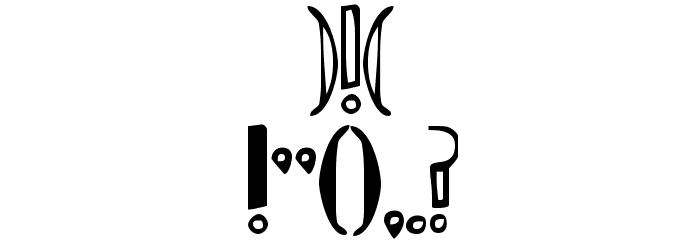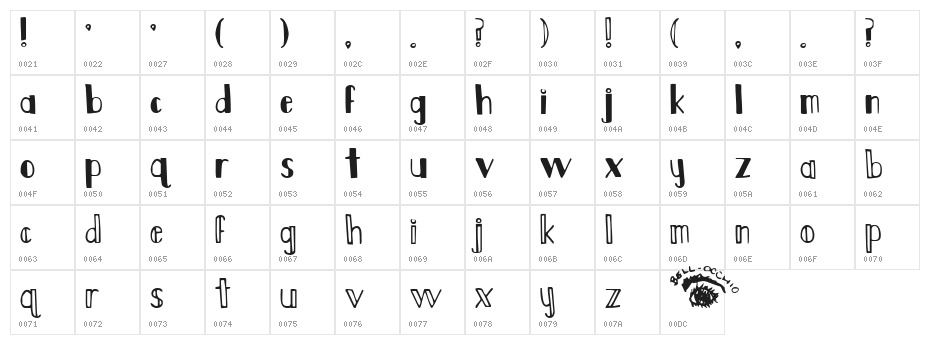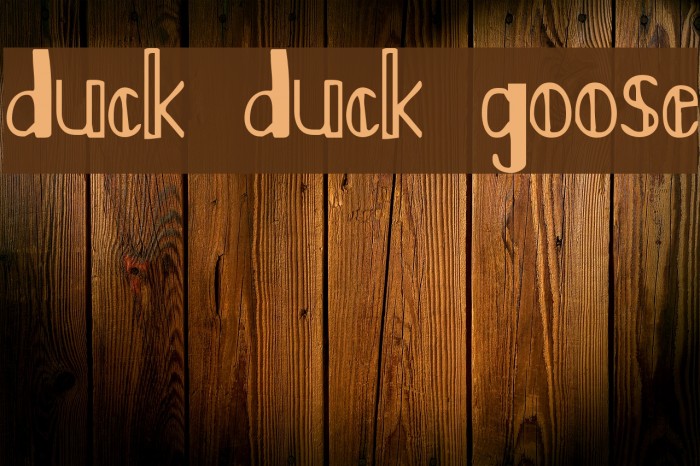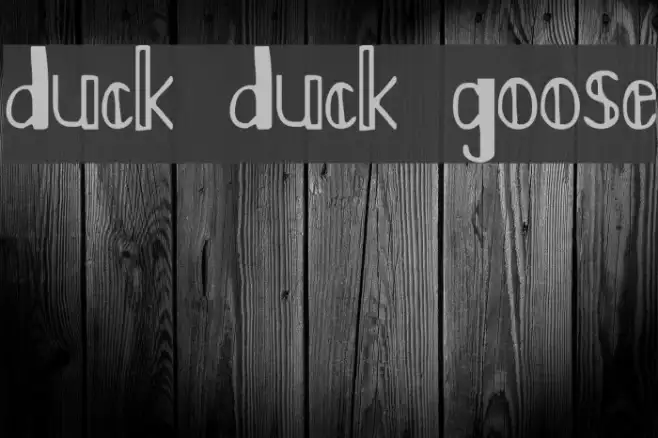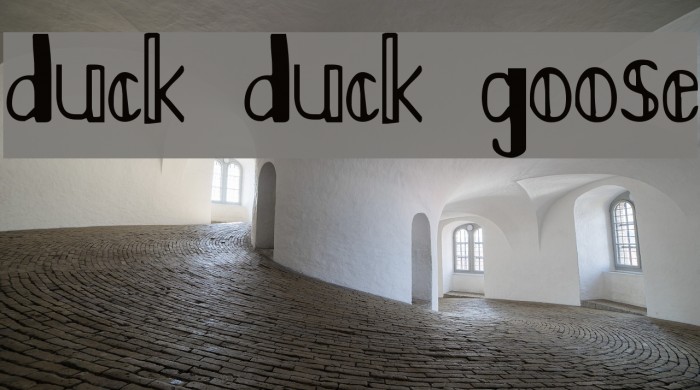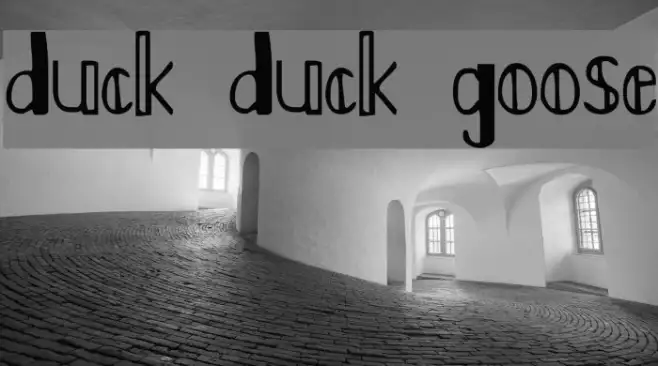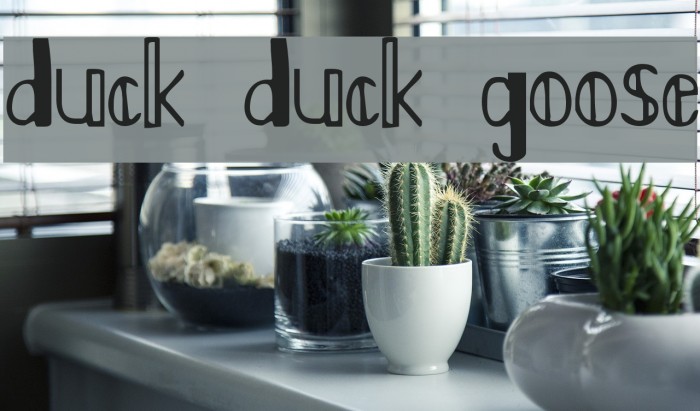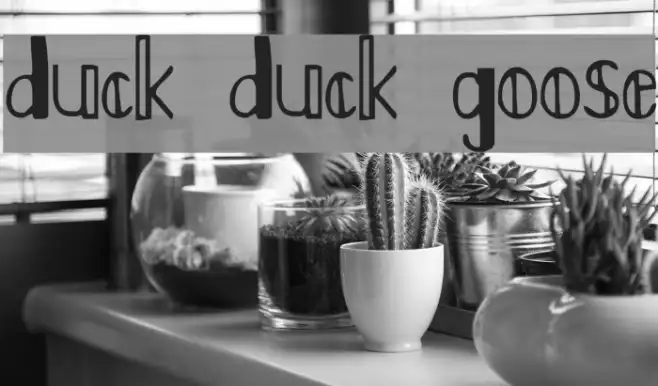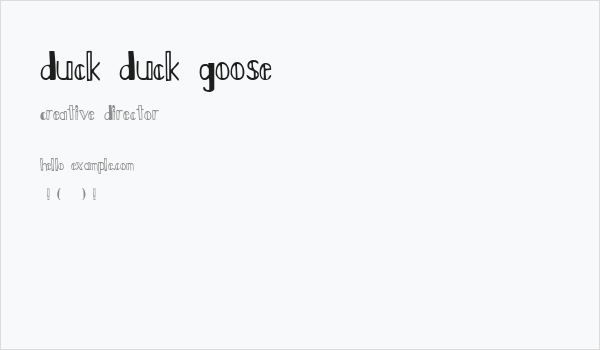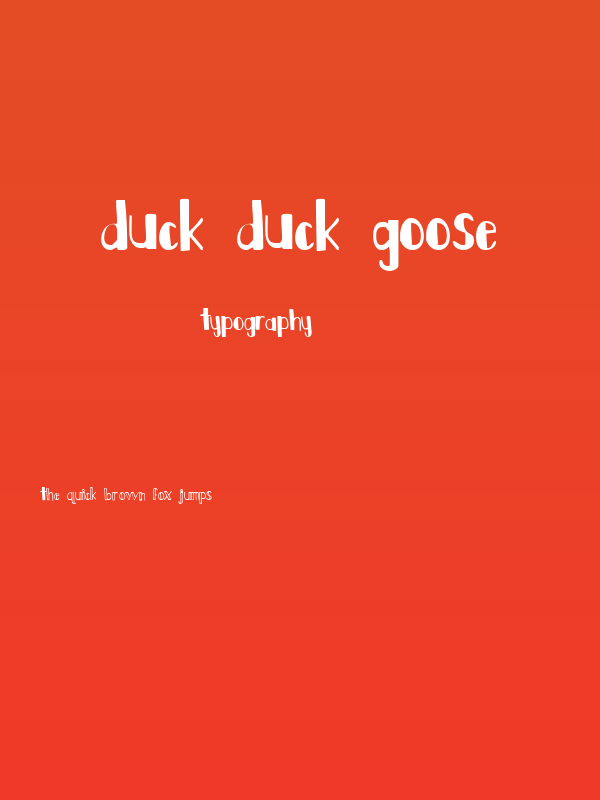
Duck Duck Goose Font
Duck Duck Goose Description
This font features a playful and whimsical design with a mix of thick and thin strokes, creating a lively and dynamic appearance. The characters are uniquely shaped, with exaggerated curves and angles that give them a quirky and fun personality. The uppercase and lowercase letters maintain a consistent style, while the numbers and special characters add to the font's distinctive charm. This font is perfect for projects that require a touch of creativity and individuality, making it ideal for children's books, playful branding, or artistic designs.
| Overall Style | Whimsical, Playful |
| Proposed Projects | Ideal for children's books, playful branding, artistic designs, and creative projects. |